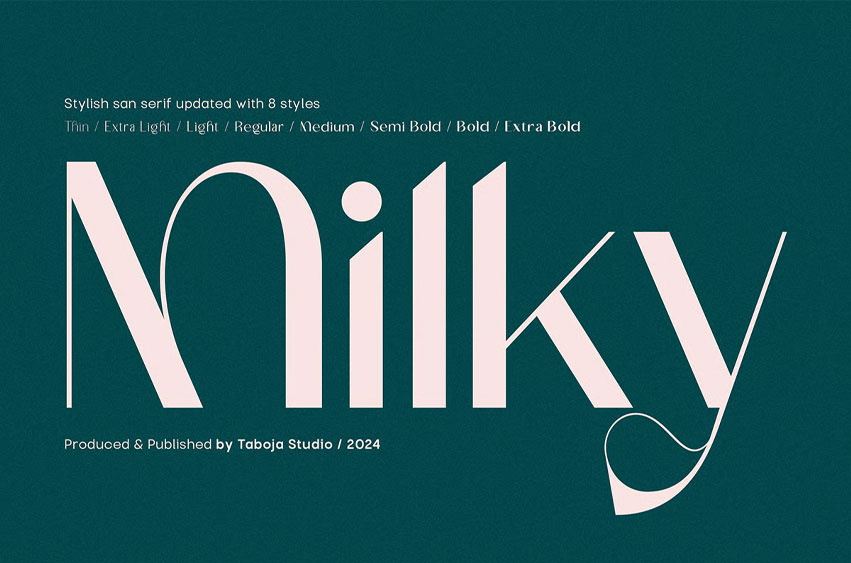
Milky Sans Font
Milky Sans Font Typeface Display Font, This refreshed version maintains the signature contrast of bold and thin strokes, offering a modern edge with flexibility for all your design needs. Each update has been thoughtfully crafted to preserve the font’s elegance and balance, providing a perfect blend of strength and sophistication.
With its sleek lines and contemporary style, Milky is ideal for branding, headlines, and standout visual displays. Whether you’re aiming for bold impact or refined detail, the enhanced Milky Typeface adapts beautifully to any creative project.
• More Ligature & Alternatif
• Numerals and Punctuation
• Accented characters